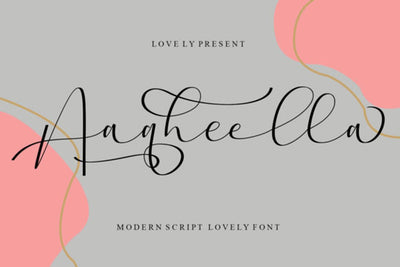
Aaqheella font
Aaqheella is a modern and flowing script font that brings its own unique style to any design project. It will elevate a wide range of design projects to the highest level, be it branding, headings, wedding designs, invitations, signatures, logos, labels, and much more!